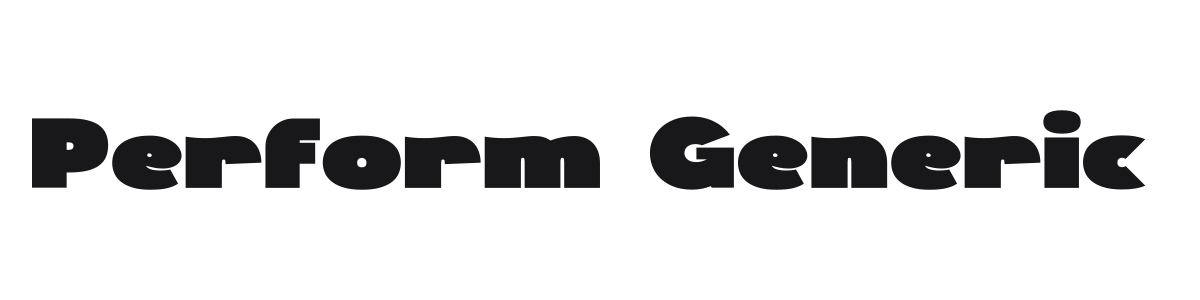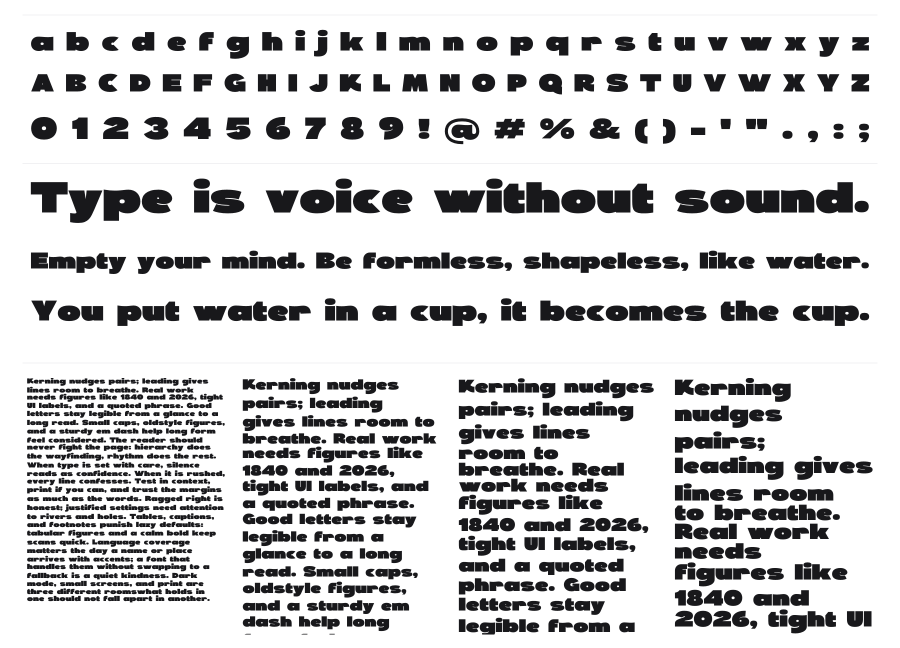
Perform Generic
Perform Generic is an ultra-black rounded sans with maximum weight and generously curved terminals. The counters are squeezed tight by the heavy strokes, creating an imposing density that still feels approachable thanks to the soft corners. It hits hard at large sizes in posters, logos, and sports branding.